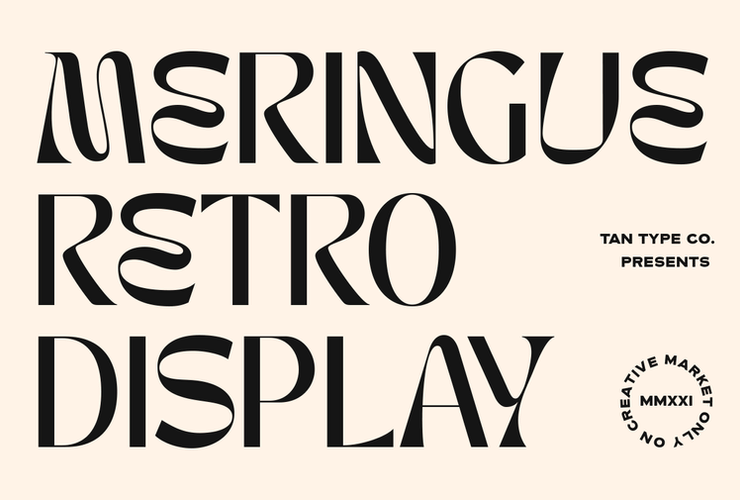
TAN Meringue specimen and verified specs
- Styles: 1 (Display)
- Glyphs: 340
- Language support: Basic Latin (English), Western European, Central & Eastern European
- OpenType features: stylistic alternates, kerning, fractions
- Designer: Novia Jonatan (TanType Co.)
How TAN Meringue is drawn
The listing calls it “a retro display typeface” whose “curves give it a fun personality”. Looking at the specimens rendered from the font files, it is a high-contrast face with almost no serifs. Strokes swell from thick to hairline-thin, and the ends flare slightly instead of finishing in brackets or slabs. That puts it somewhere between a 1970s phototype display face and a contrast sans.
The curves are not decoration added on top. They are built into the skeleton of the letters. The capital M is made of wavy, S-shaped strokes. The E is rounded like an epsilon. The lower bowl of the B is left open, and the U, V and W have curved, uneven sides. In the lowercase, the a is drawn with a loop, the g has a large open tail, and the y swings its descender to the left. The figures are narrower and more upright, with a flat-topped 3. The proportions are fairly condensed, so long words fit on a line at large sizes.
The result looks warm and a little theatrical, a good fit for food, fashion and lifestyle work where a plain geometric sans would feel cold.
- One style, named Display in the font files. There is no bold, light or italic.
- 340 glyphs, covering upper and lowercase, figures, punctuation and accented letters.
- Designer: Novia Jonatan, per the font files, published by TanType Co.
The licensed file supports Basic Latin, Western European and Central and Eastern European characters. That covers English and most languages written in the Latin alphabet across Europe, such as French, Italian, Dutch, Polish, Czech and Romanian.
The OpenType features are:
- Kerning: built-in spacing for specific letter pairs, applied automatically by almost every app.
- Fractions: converts typed fractions such as 1/4 into proper fraction glyphs when the feature is switched on.
Best uses and pairings
TAN Meringue is a headline font. It suits bakery and dessert branding (the name invites it), café menus, cosmetics packaging, fashion and lifestyle social posts, event posters and retro-themed logos. Its hairlines need a reasonable size, so it isn’t a good choice for captions or body text.
Who designed TAN Meringue?